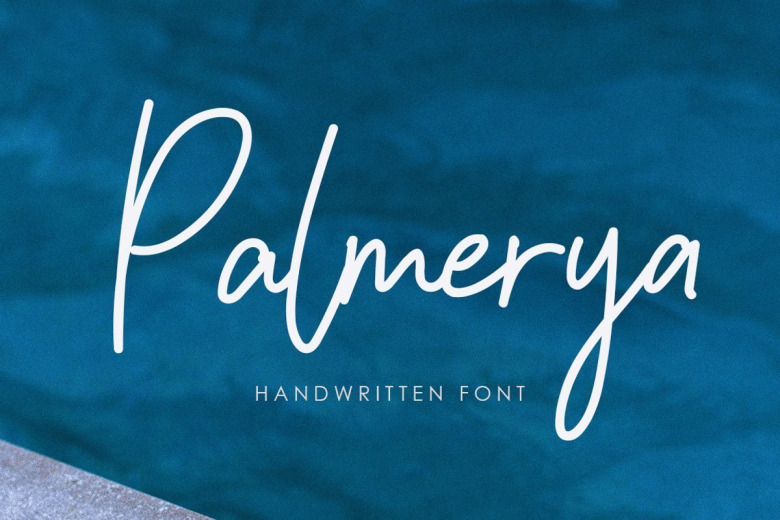
Palmeyra Handwritten Script Font
Palmeyra Handwritten Script Font feels equally charming and elegant. It looks stunning on wedding invitations, thank you cards, quotes, greeting cards, logos, business cards and every other design which needs a handwritten touch.
Palmeyra also includes full set of uppercase and lowercase letters, multilingual symbols, numerals, punctuation and ligatures. This font is free for PERSONAL USE. Link to purchase full version and commercial license : HERE